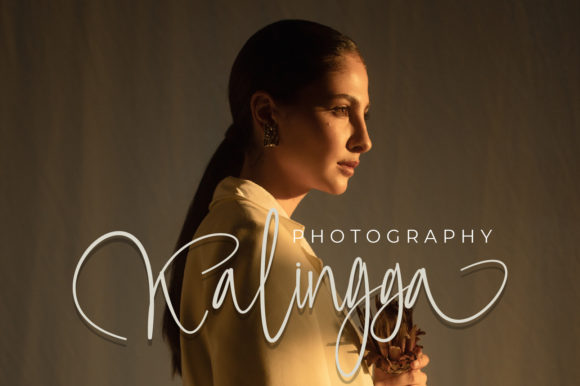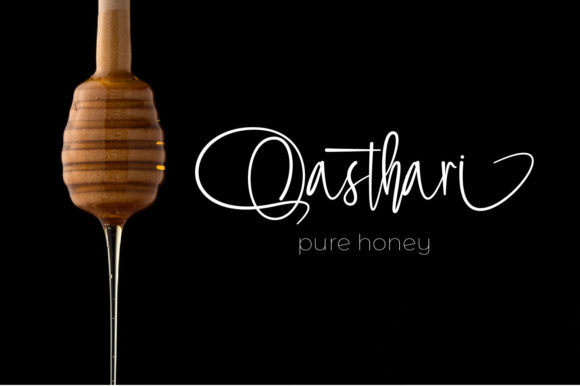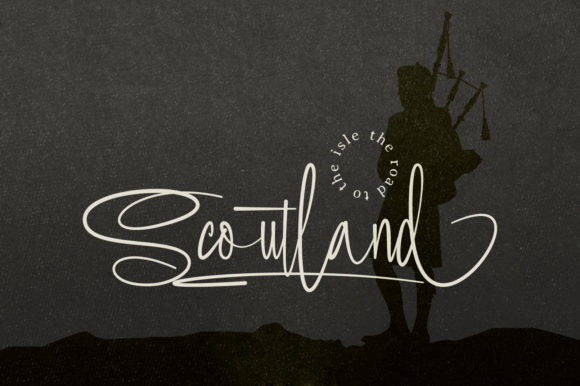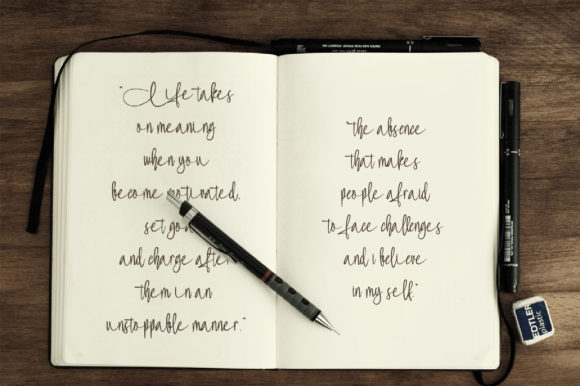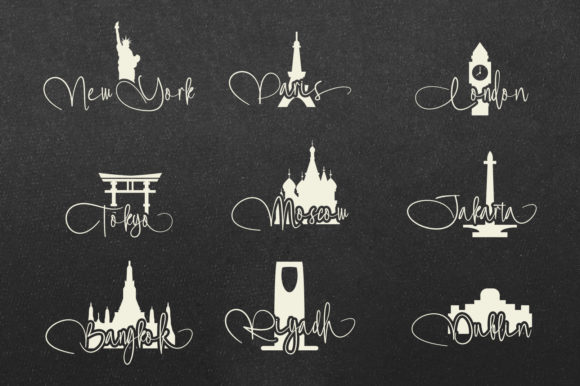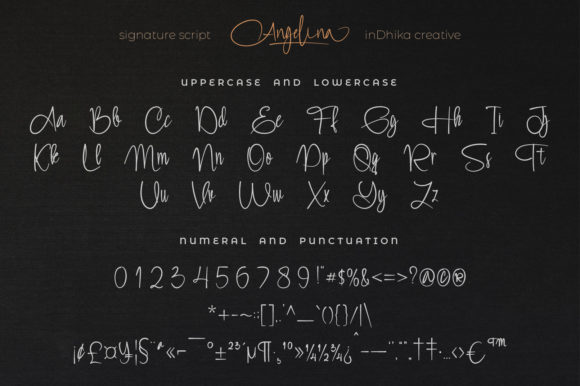
Introducing Angelina Font: Elevate Your Designs with Elegance and Sophistication
In the world of typography, few fonts manage to capture the essence of classic elegance while still feeling contemporary and fresh. Angelina Font is one such exceptional typeface that brings together the timeless beauty of traditional calligraphy with a modern twist. Designed to inspire creativity and sophistication, Angelina is an elegant script font that is sure to become a staple in the toolkit of designers and crafters alike.
The Inspiration Behind Angelina
Angelina Font draws its inspiration from the timeless classics of calligraphy, where every stroke and curve was meticulously crafted to convey elegance and refinement. The creators of Angelina have successfully distilled the essence of these classic scripts into a font that feels both nostalgic and modern. This blend of old and new makes Angelina incredibly versatile, suitable for a wide range of design projects from wedding invitations and branding to packaging and digital media.
Key Features of Angelina Font
One of the standout features of Angelina Font is its impeccable form. Each letter is carefully designed to ensure that the font flows beautifully, making it perfect for creating visually stunning text. But what truly sets Angelina apart is its PUA (Private Use Area) encoding. This means that users can easily access all the glyphs and swashes, allowing for a high degree of customization and creativity. Whether you’re looking to add a personal touch to a project or simply want to experiment with different styles, Angelina’s PUA encoding makes it incredibly user-friendly.
Contemporary Atmosphere with a Classic Touch
Angelina Font strikes the perfect balance between a contemporary atmosphere and classic elegance. Its clean lines and flowing curves give it a modern feel that’s instantly appealing, while its roots in traditional calligraphy ensure that it retains a level of sophistication and refinement. This balance makes Angelina an excellent choice for designers who want to create work that feels current yet timeless.
Applications of Angelina Font
The versatility of Angelina Font makes it suitable for a wide range of applications. Here are just a few examples of how you can use Angelina to elevate your designs:
- Wedding and Event Stationery: Create beautiful wedding invitations, save-the-date cards, and event programs that set the tone for a sophisticated and elegant celebration.
- Branding and Logo Design: Use Angelina to add a touch of elegance to your brand’s identity. Its unique and memorable style ensures that your logo will stand out.
- Packaging Design: Add a level of sophistication to your product packaging with Angelina. Its classic yet modern feel makes it perfect for luxury brands.
- Digital Media: From social media graphics to website headers, Angelina can add a touch of elegance to your digital content, making it more engaging and visually appealing.
Why Choose Angelina Font?
With so many fonts available, why choose Angelina? The answer lies in its unique combination of classic elegance and modern versatility. Here are a few reasons why Angelina stands out:
- Elegant and Sophisticated: Angelina brings a level of elegance and sophistication to any design project.
- Highly Versatile: Suitable for a wide range of applications, from traditional stationery to modern digital media.
- User-Friendly: PUA encoding makes it easy to access and use all the glyphs and swashes.
- Timeless Appeal: Combines the best of classic calligraphy with a contemporary atmosphere, ensuring that your designs feel both current and timeless.
Angelina Font is a beautiful and elegant script font that brings a touch of classic sophistication to any design project. Its contemporary atmosphere, impeccable form, and PUA encoding make it an excellent choice for designers and crafters looking to create visually stunning work. Whether you’re designing wedding stationery, branding materials, or digital content, Angelina is sure to elevate your designs and leave a lasting impression.